Avoid These 7 Rookie Mistakes When Designing Your First Font
Creating your first font is an exciting milestone in your design journey. Whether you’re a graphic designer exploring typography or a lettering artist ready to bring your work to life, turning your letters into a working typeface is both a creative and technical process. But beginners often fall into common traps that can affect the functionality, aesthetics, and usability of their fonts. In this article, we’ll break down the most frequent mistakes new font creators make—and how you can avoid them.
1. Inconsistent Stroke Weight and Spacing
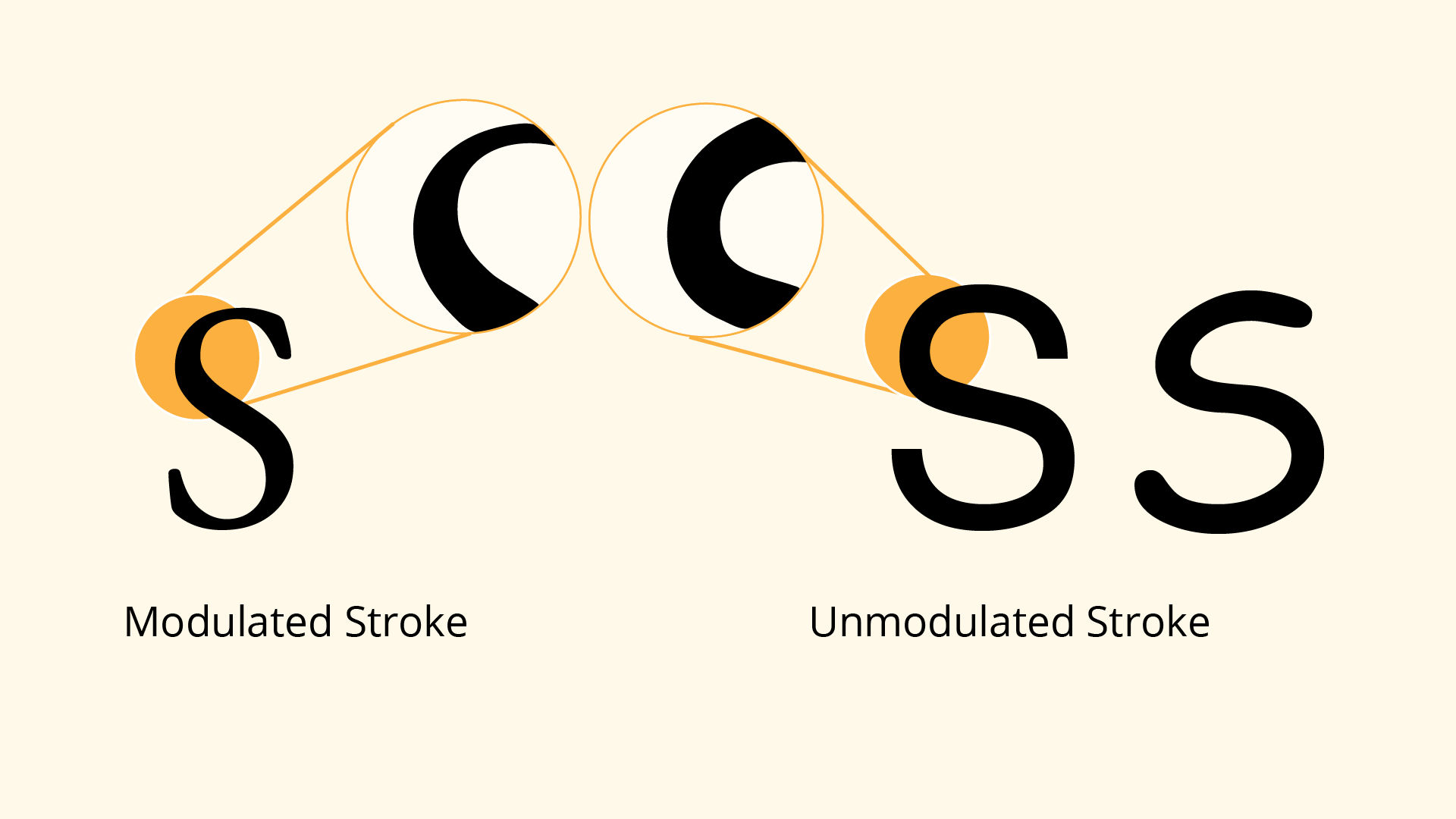
The mistake: Mixing different stroke thicknesses and uneven spacing between letters creates a jarring reading experience.
How to avoid it:
Use consistent stroke weights across characters (unless you’re intentionally creating contrast) and test your spacing frequently. Tools like sidebearings and kerning pairs in font software can help balance your letterforms.
2. Neglecting the Importance of Spacing and Kerning
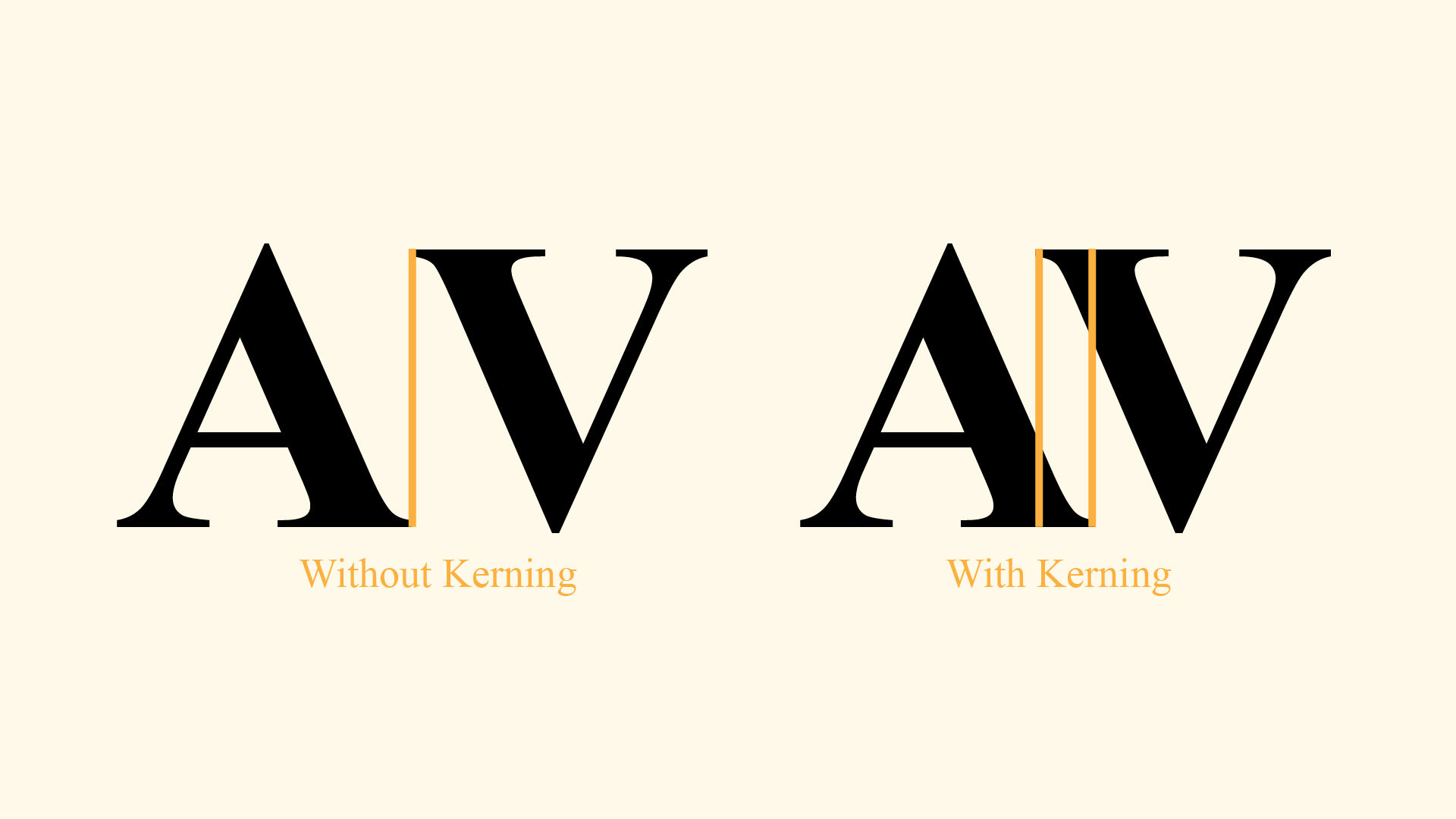
The mistake: Beginners often focus solely on designing beautiful characters but ignore how they interact side by side.
How to avoid it:
Good type is not just about letters—it’s about the space between them. Spend time adjusting spacing (sidebearings) and kerning to make sure every letter combination looks natural. Start with common pairs like “AV,” “To,” and “Wa.”
3. Skipping the Baseline and Alignment Rules
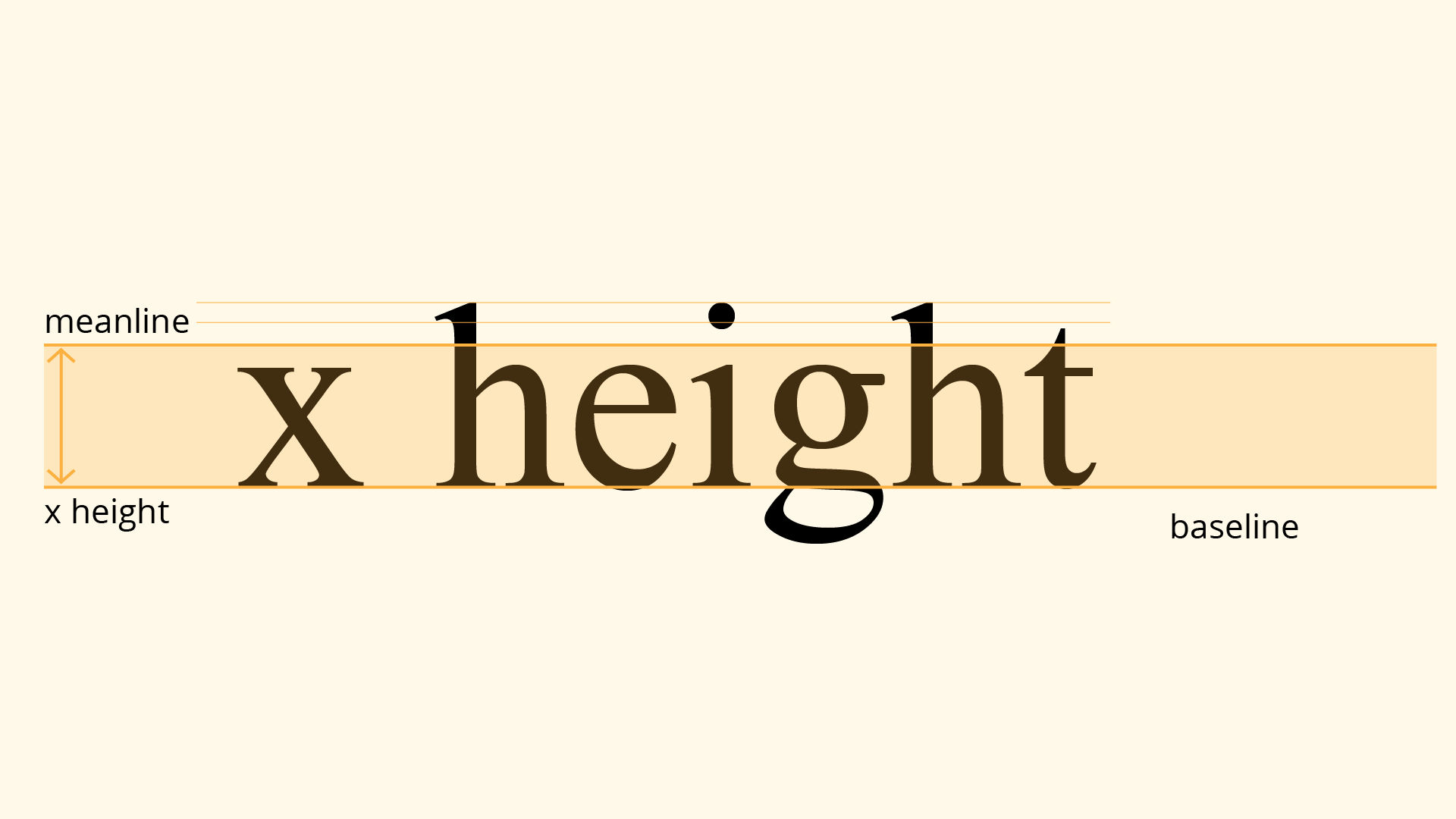
The mistake: Letters that don’t sit on the same baseline or follow a consistent height (x-height, ascenders, descenders) can make your font look chaotic.
How to avoid it:
Set up clear guides in your font editor. Maintain uniformity in cap height, x-height, and baseline. This will ensure that all glyphs are visually balanced.
4. Too Many Decorative Elements
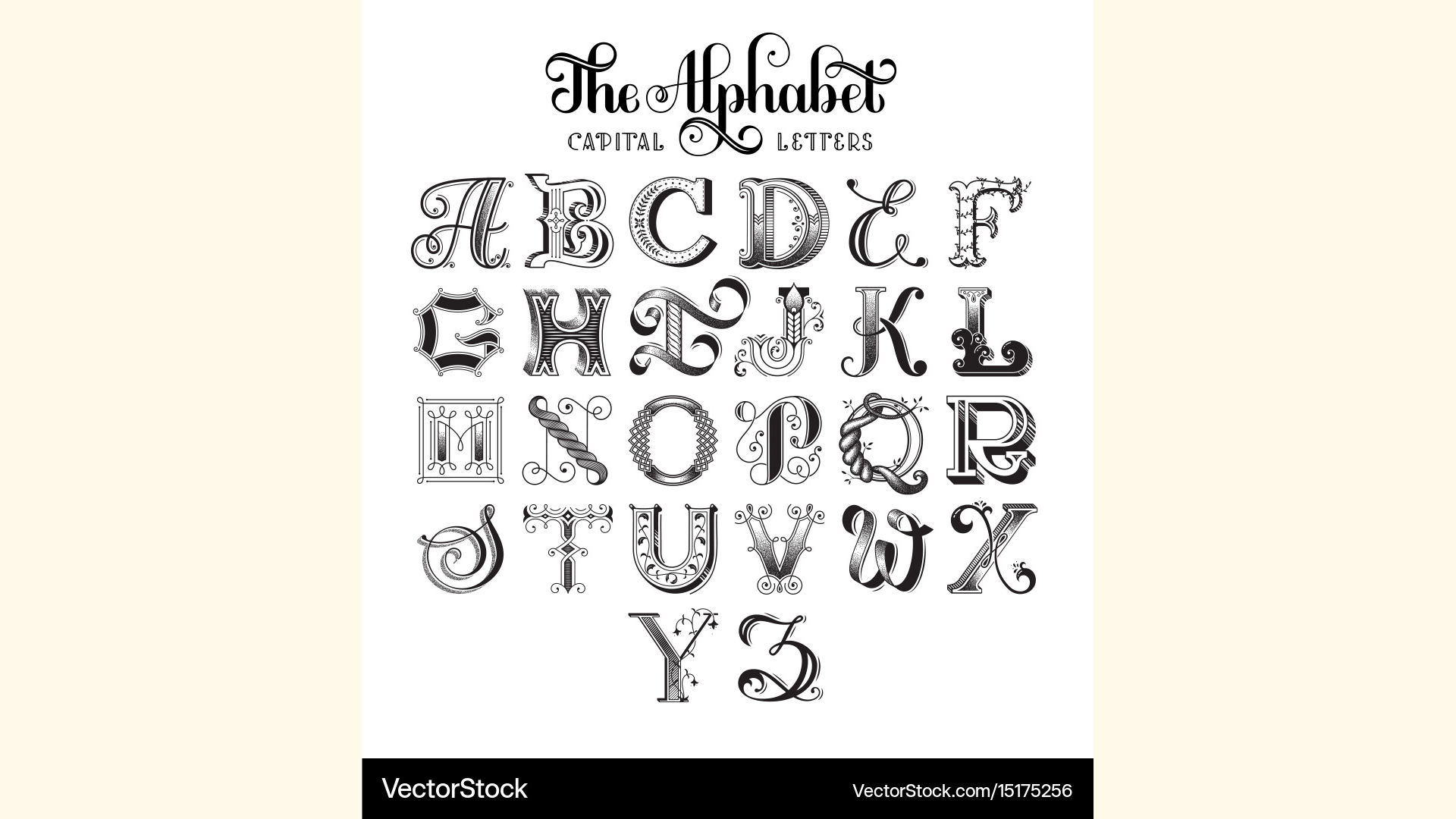
The mistake: Going overboard with swashes, curls, and flourishes can make your font hard to read and less versatile.
How to avoid it:
Keep it simple—especially for your first font. Focus on legibility and clean forms. You can always create a decorative alternate version later.
5. Not Testing in Real Contexts
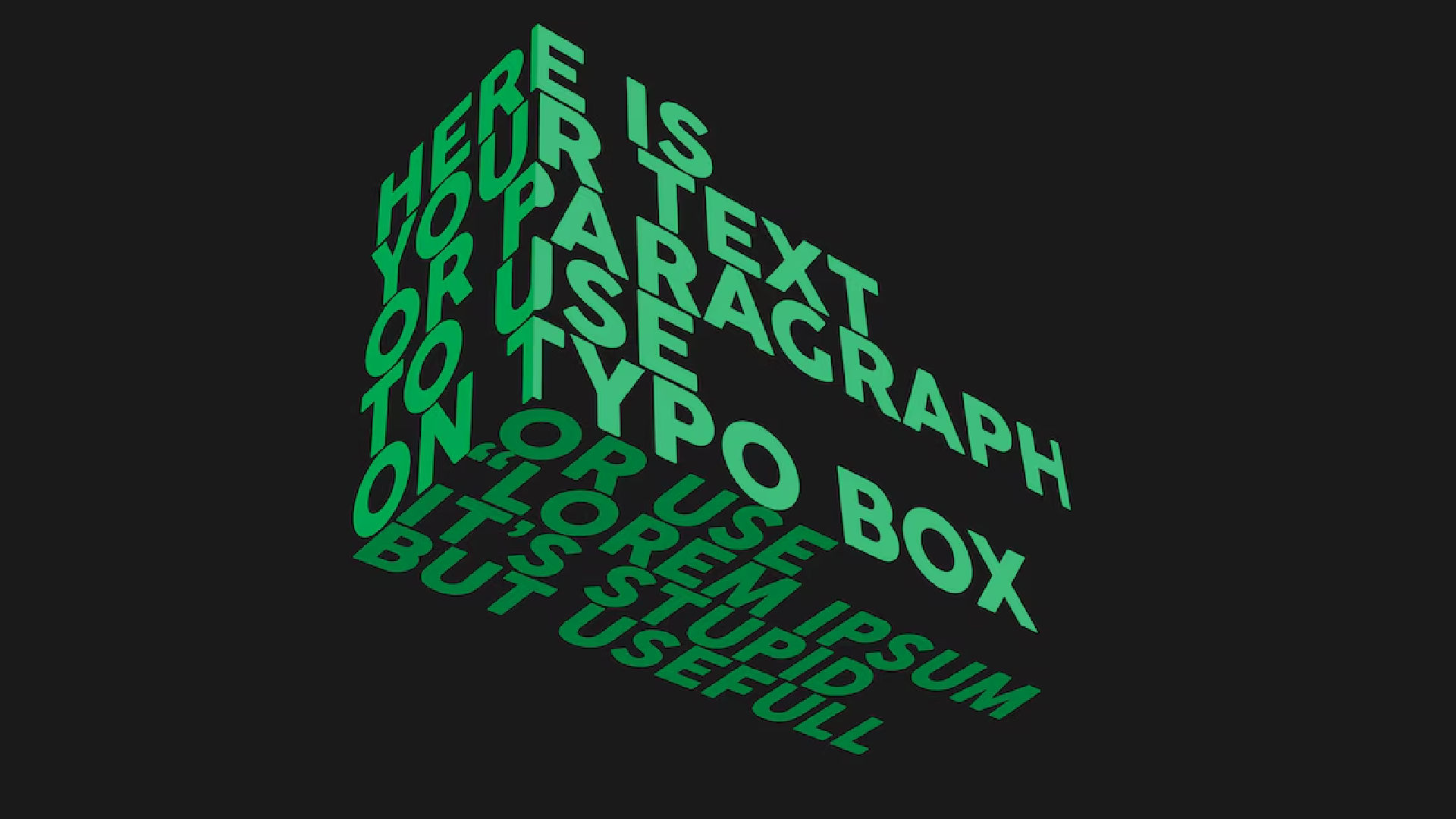
The mistake: Designing all your letters but never testing how they look in real sentences, headlines, or paragraphs.
How to avoid it:
Use your font in mockups, test documents, or design software as early as possible. It will reveal issues you may not see when looking at single letters.
6. Inconsistent Style Between Letters
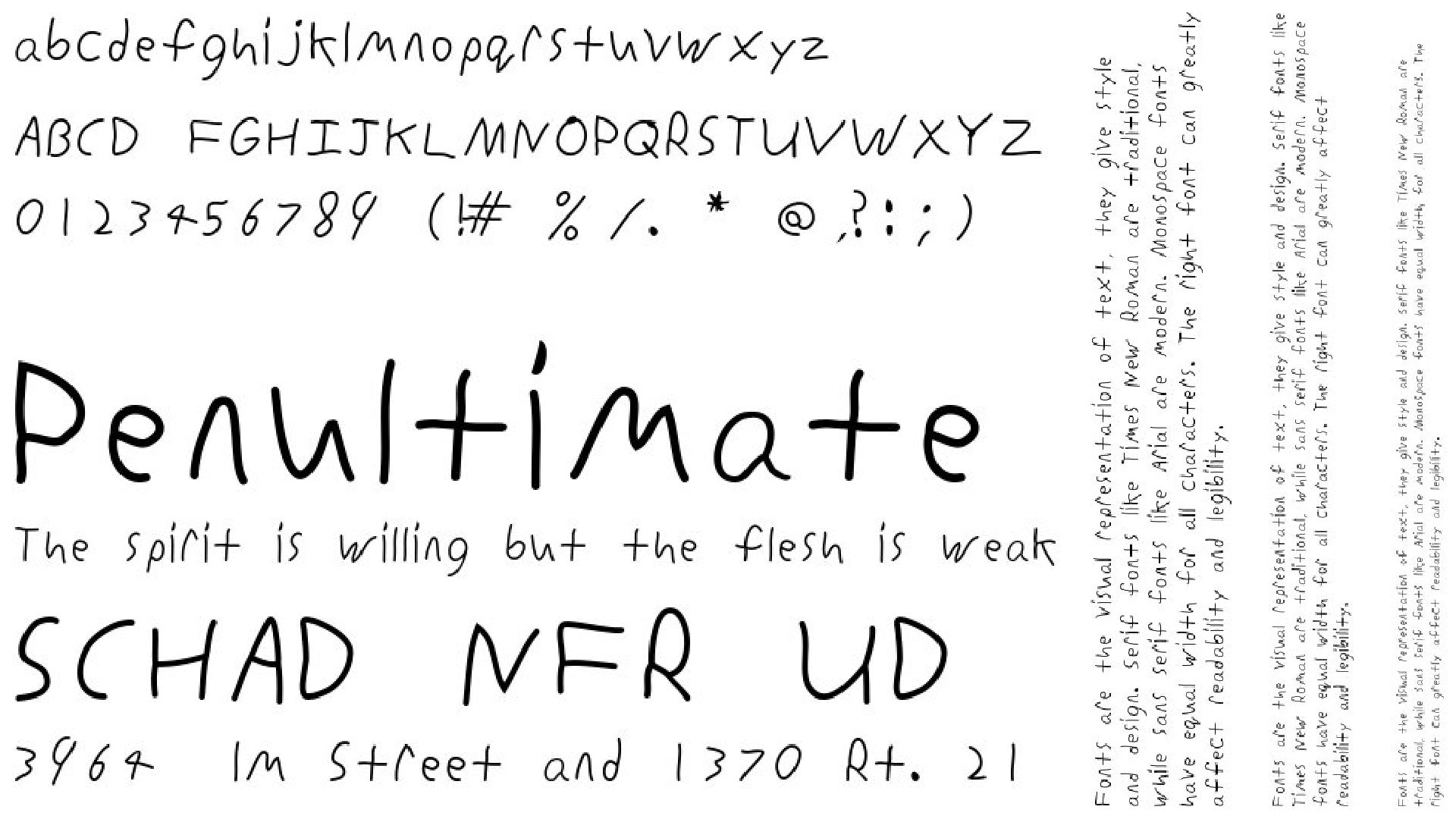
The mistake: Mixing different design styles (e.g., one letter with rounded terminals and another with sharp serifs) can create visual dissonance.
How to avoid it:
Stick to a visual theme or style guide for your font. If you design one letter with certain characteristics, make sure the others follow the same rules.
7. Exporting Without Proper Format or Naming
How to avoid it:
Conclusion:
Creating your first font is a learning process—and mistakes are part of the journey. By understanding and avoiding these beginner pitfalls, you’ll produce a more polished, professional, and usable typeface. Remember: typography is as much about precision as it is about creativity. Take your time, test your work often, and don’t be afraid to iterate.